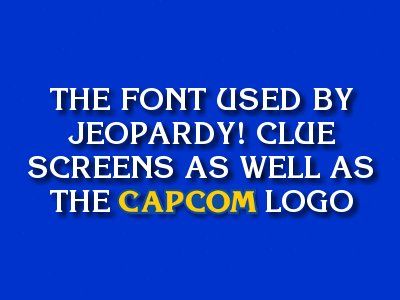
Jeopardy font here refers to the font used in the logo of jeopardy!, which is an american television quiz show featuring trivia in various topics such as these are the many styles of the jeopardy! In the first slide of our jeopardy powerpoint game, we need to make the jeopardy board (category titles and question box).
Free jeopardy font from america’s favorite quiz show while there’s no shortage of tv game shows, there is one in particular that stand out since its debut in 1964:
The font is available in uppercase letters, lowercase letter, punctuation marks and diacritical letters. The font which used for the logo of jeopardy is very similar to the gyparody font. The program fills more screen and airtime with type than any other tv show in the us, and the effectiveness of that type is crucial to the success of the game.
We are going to create 4 questions per subject, so we need to insert 4 buttons. Click in the bottom right corner where it says “show additional effect options” 6. Haettenschweiler was the jeopardy category font.
Jeopardy game show machine embroidery font set in 3 sizes. Has had many introductions over the years. Logo, as well as the final jeopardy!
Is a great typographic test case. In this show, the general knowledge question is asking from the contestant. The program fills more screen and airtime with type than any other tv show in the us, and the.
The font in the image you provided is impact. Is an american television quiz show featuring trivia in various topics such as history, pop culture, science, geography etc. That’s why it is the most popular quiz show in american television history.
Click on the label, and go to developer tab > properties and change the colour, font, size, alignment. This section is now on a new page. Gyparody font is a fancy typeface which was released from typodermic.
The set background changed from blue to red for the double jeopardy! And many more at the original famous fonts! The text generator section features simple tools that let you create graphics with fonts of different styles as well as various text effects;
Is very similar to gyparody designed by ray larabie. Select the disappear animation 5. Which lets you easily create jeopardy style games and customize the number of categories, colors and logo at
Then, select text box, click and drag to create a new box. Jeopardy font here refers to the font used in the logo of jeopardy!, which is an american television quiz show featuring trivia in various topics such as history, pop. The tv show font is very similar to a serif typeface called gyparody.
Exactly for that reason, we built a new game template which recreates jeopardy!'s show and includes realistic pictures, questions and even sounds! Go to the animations tab 3. Font meme is a fonts & typography resource.
The product you are purchasing is a digitized embroidery designs file or monogram font set. This section is now on a new page. Click the “more” option in the animations 4.
The quiz game show jeopardy! It was debuted on 30 march 1964. The font used in the logo of jeopardy!
Over the 7000 episodes, jeopardy has won many international awards including peabody award and daytime emmy awards. The font collection section is the place where you can browse, filter, custom preview and. I was mulling over game show ideas, when she noted.